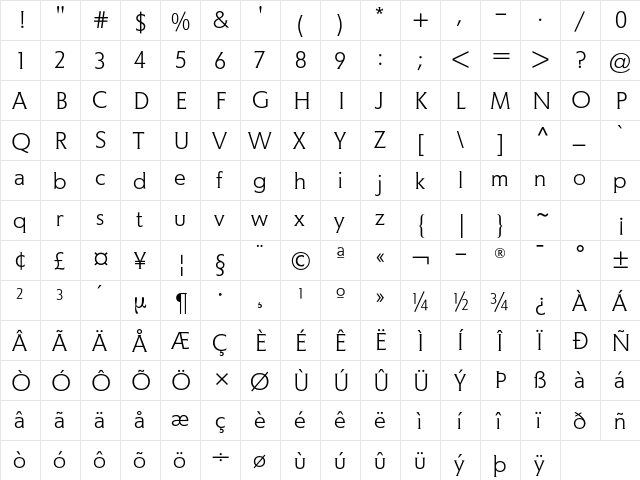
Memo Std Light
Design Context for Memo Std Typeface
Memo Std takes a measured approach to typography — its balanced proportions and neutral character make it a reliable workhorse for both digital and print work. Its slender proportions lend an understated elegance to any composition.
Pro Tip: Use Memo Std in both headline and body roles to test its range before committing to a single application.